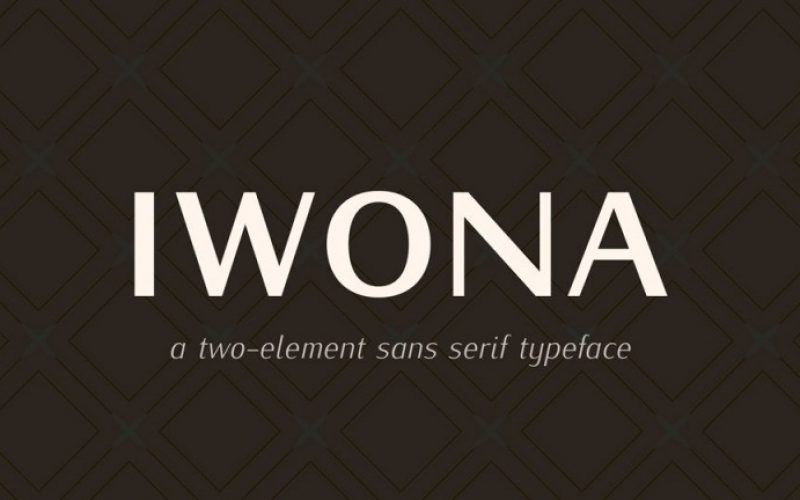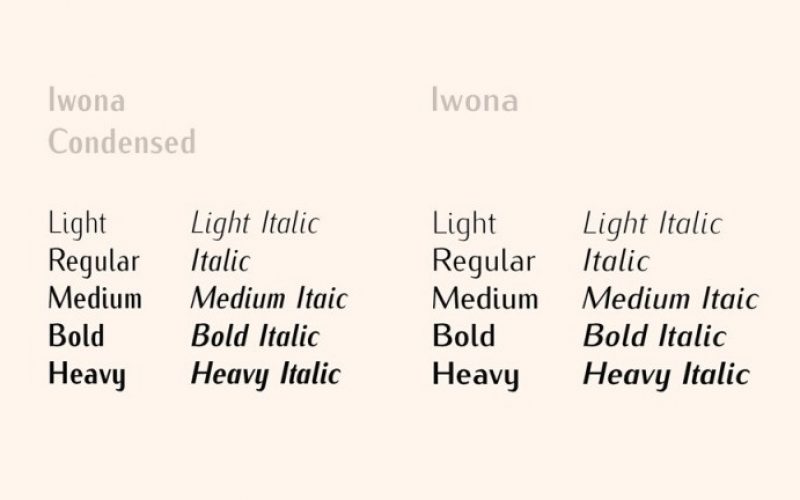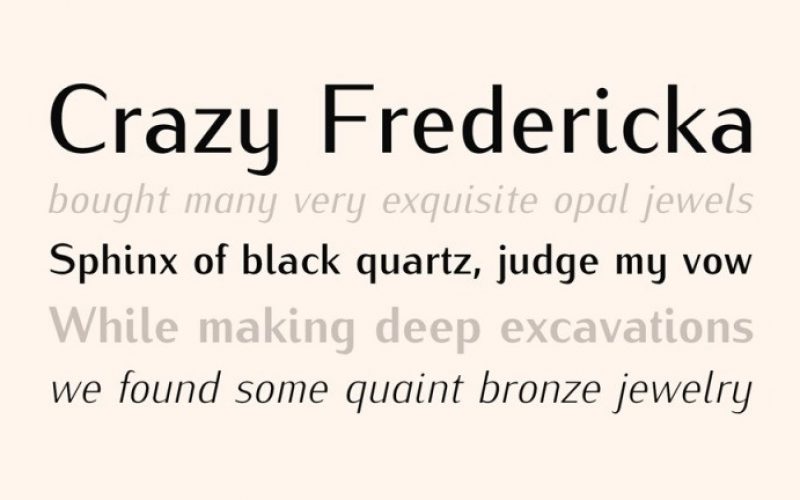
Iwona Sans Serif Font
Iwona is a sans serif typeface designed for a diploma in typeface design at the Warsaw Academy of Fine Arts in 1975.
The Iwona fonts are an alternative version of the Kurier fonts. Kurier was designed for linotype typesetting of newspapers and similar periodicals. The difference lies in the absence of ink traps which typify the Kurier font.